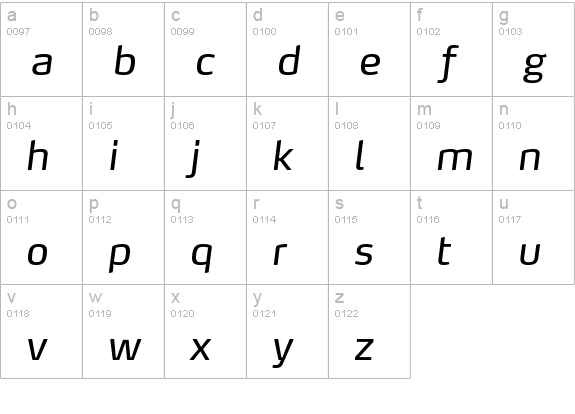
Max-RegularItalic Font Details
The Max-RegularItalic font is a stylish and modern typeface that exudes sophistication and elegance. Its sleek italic design adds a touch of flair to any project, making it perfect for creating eye-catching headings, logos, and more. This versatile font is suitable for a wide range of design applications, from branding to editorial work. What's more, the Max-RegularItalic font is available for free download at FontsMarket.com. This means you can easily access this high-quality typeface without any cost, making it a valuable addition to your font library. Don't miss out on the opportunity to enhance your designs with the Max-RegularItalic font today!